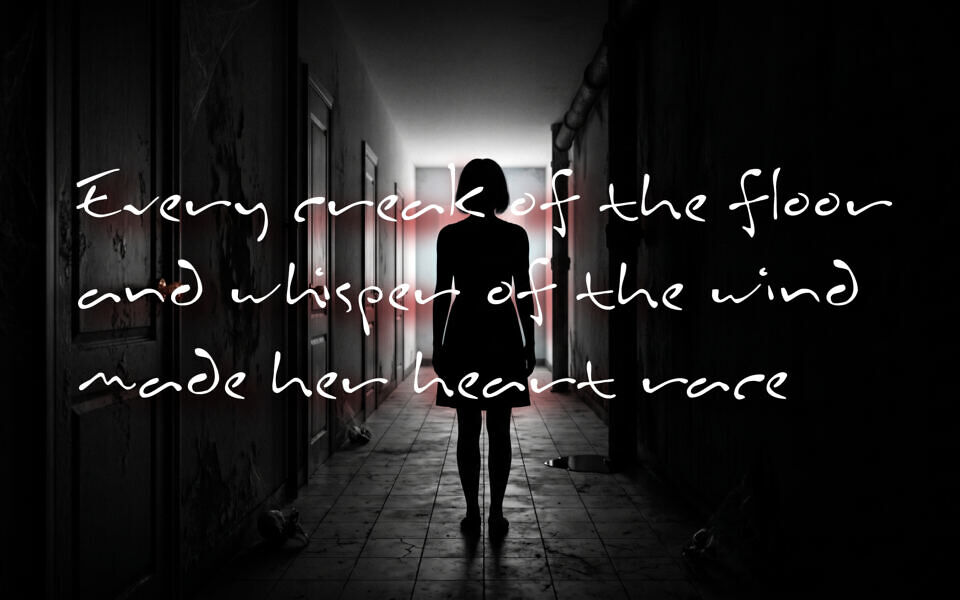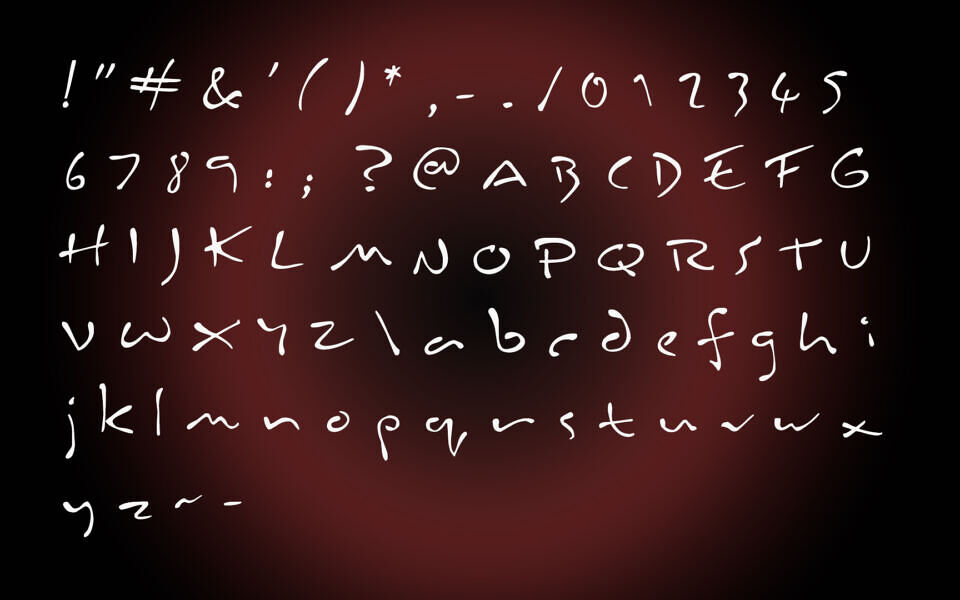
Inkburrow is a unique, hand-drawn script font designed by Uddi Uddi. Characterized by its thin, fluid, and uneven brush-like strokes, the typeface captures a raw, organic essence that mimics casual handwriting or messy ink pen strokes.
This distinct stylistic irregularity gives it an expressive and atmospheric quality, making it exceptionally well-suited for creative designs, personalized artwork, or branding projects that require a mysterious, spooky vibe, moody, or authentically handwritten aesthetic.